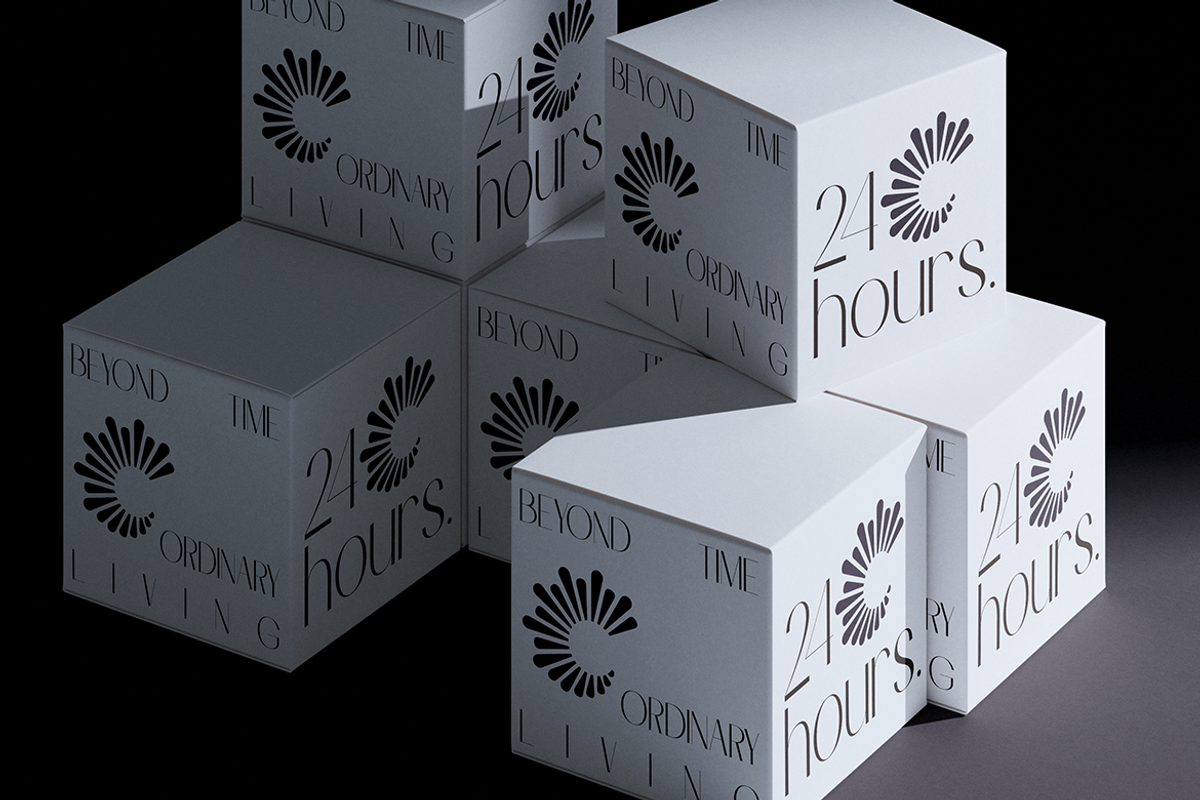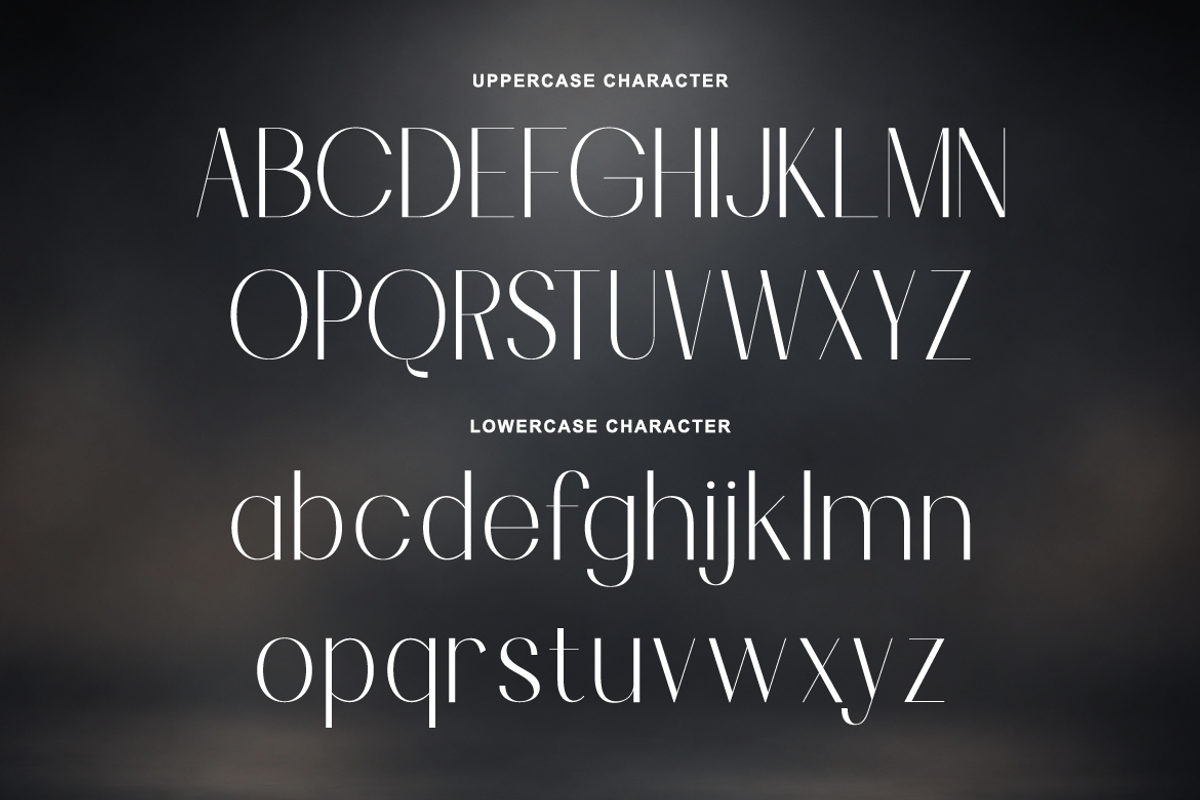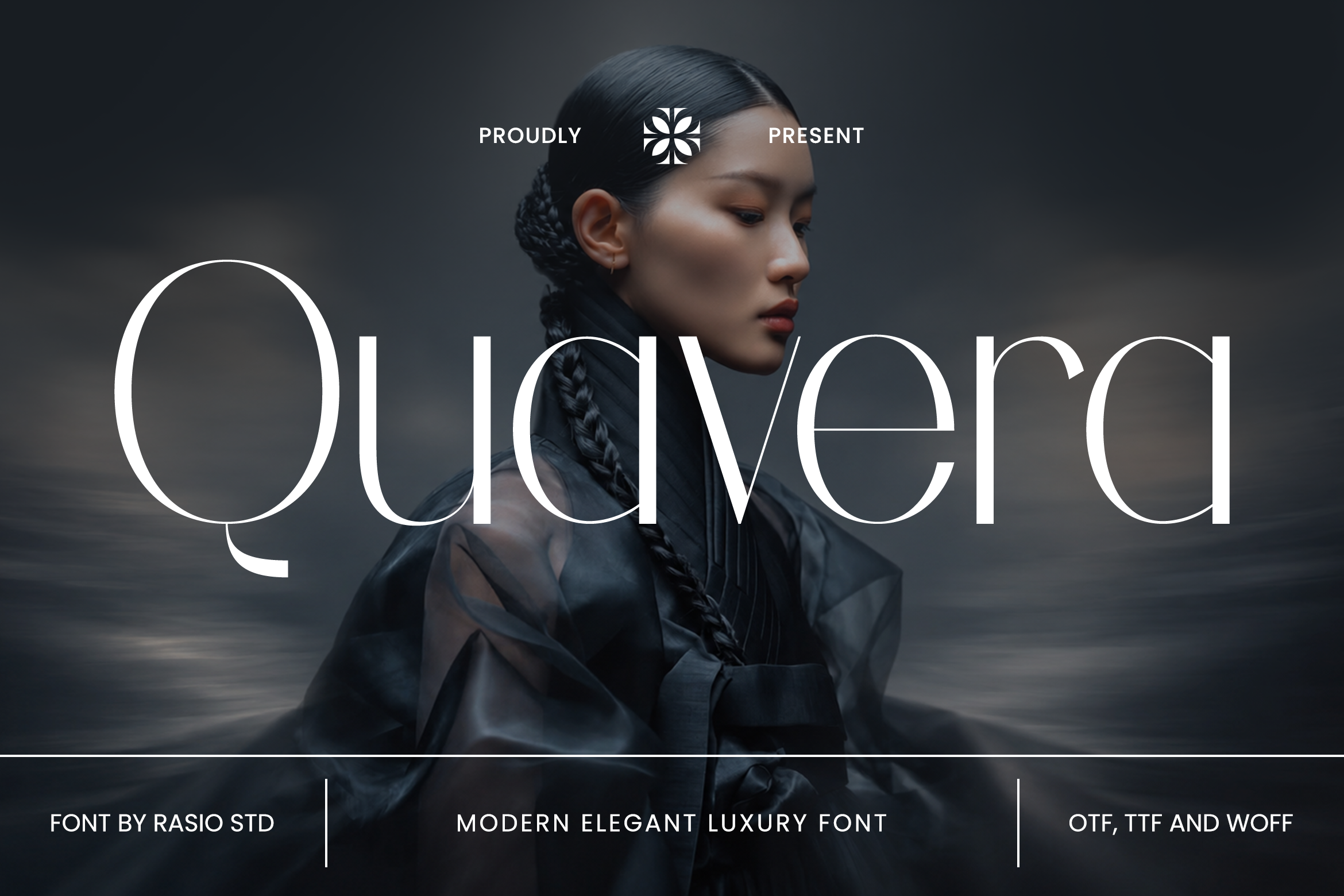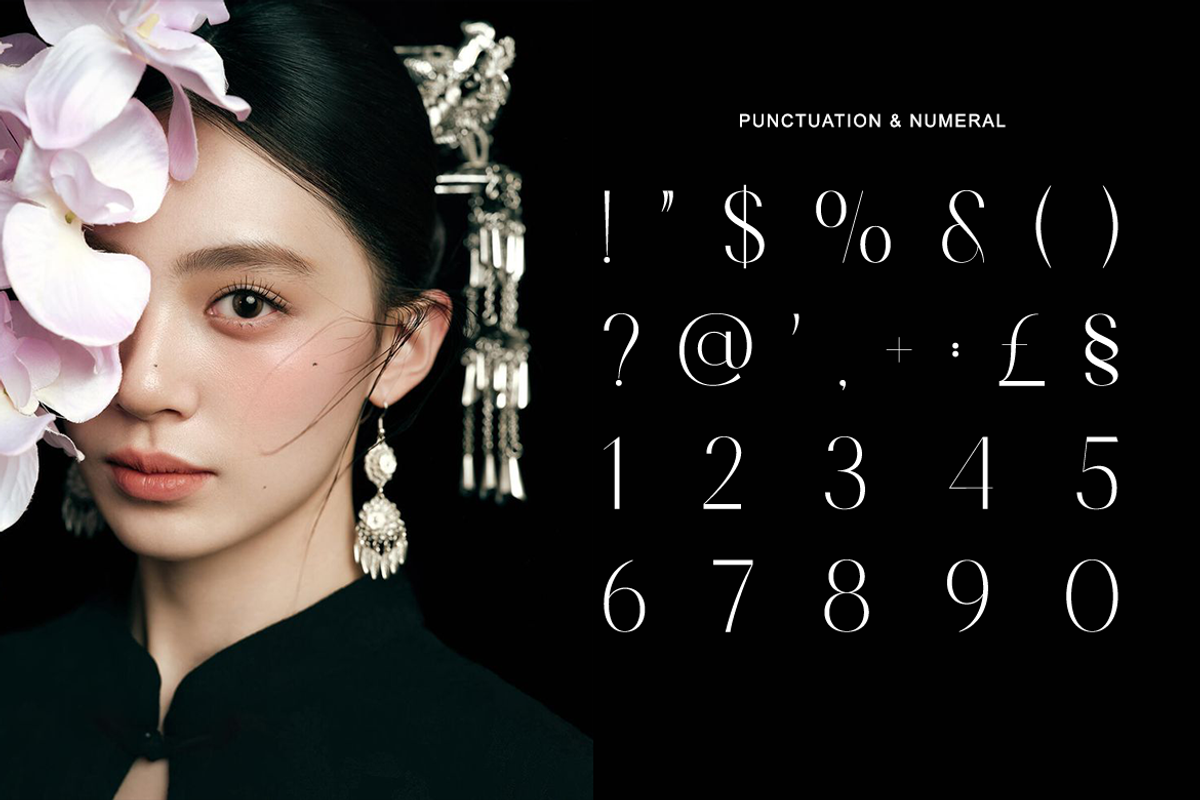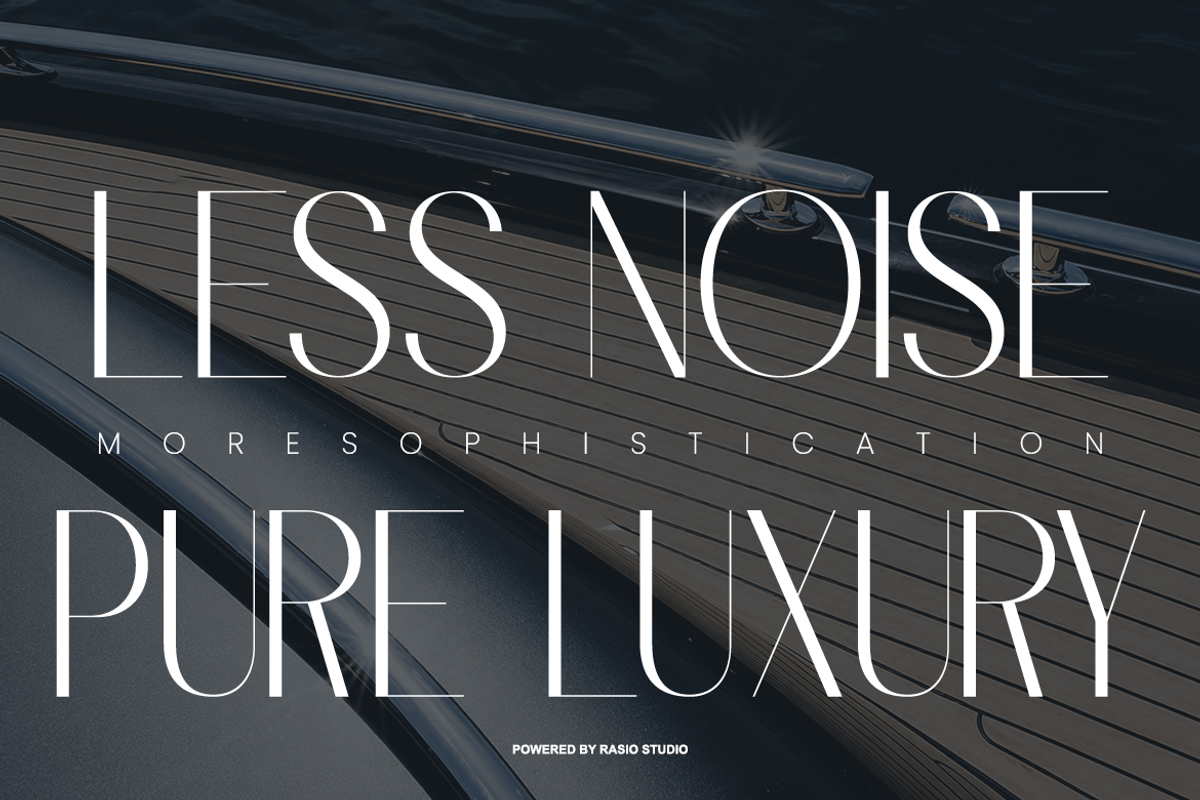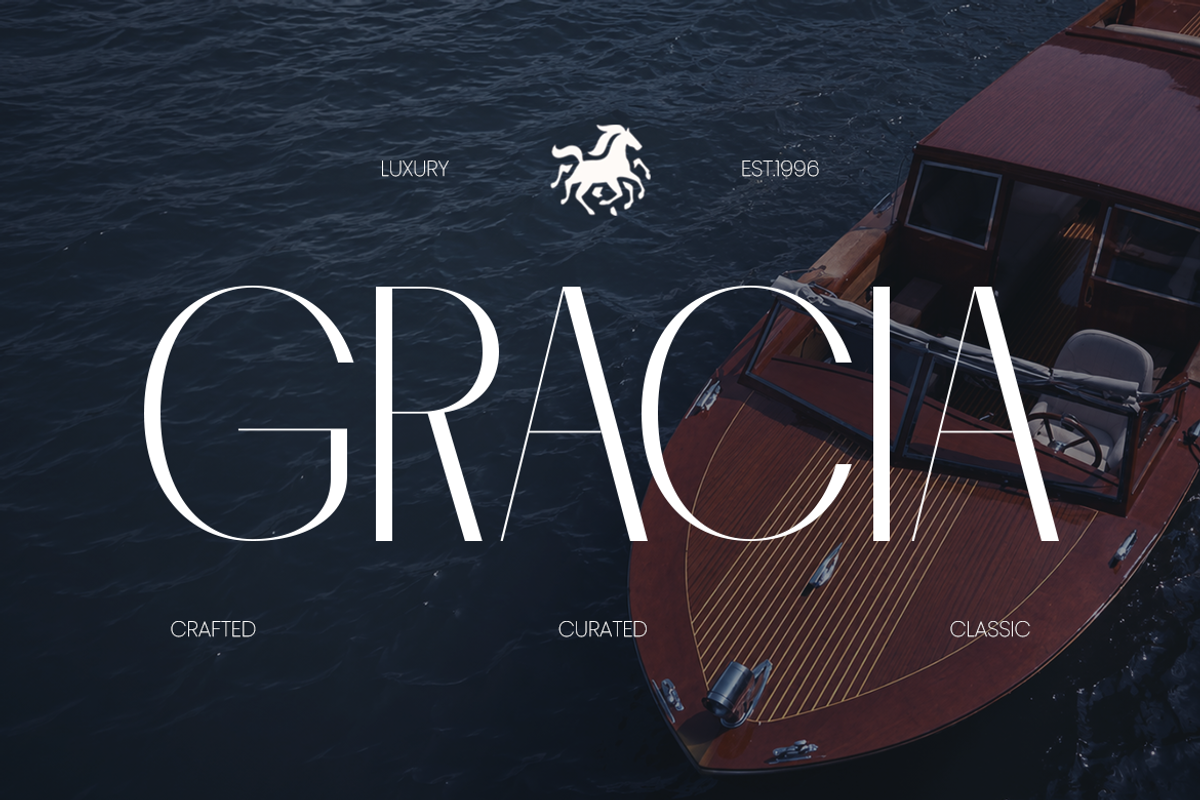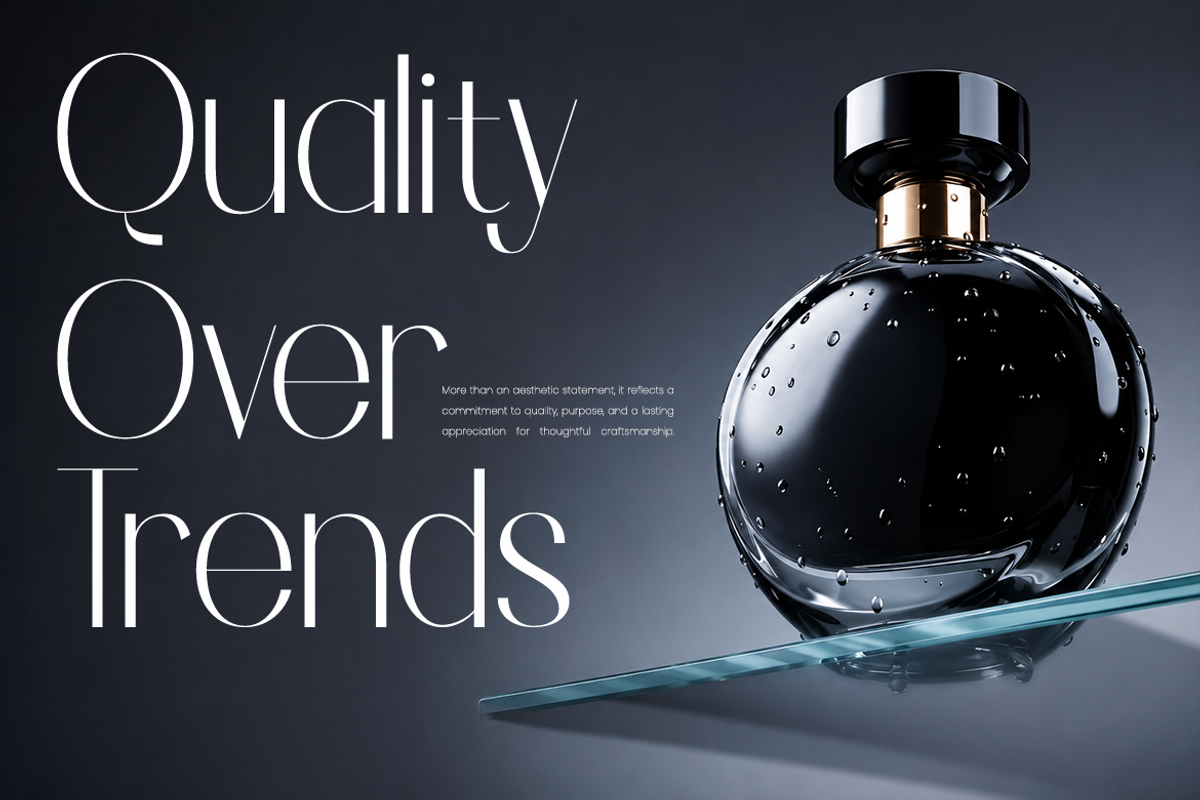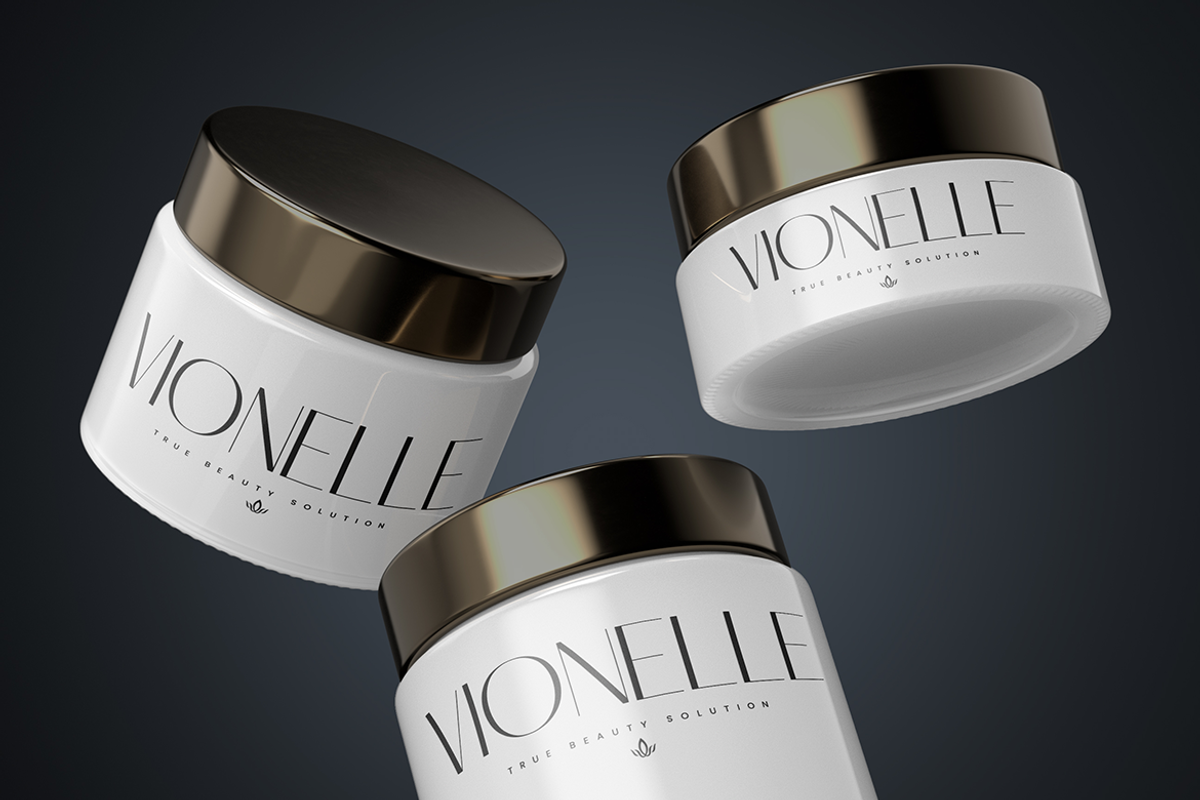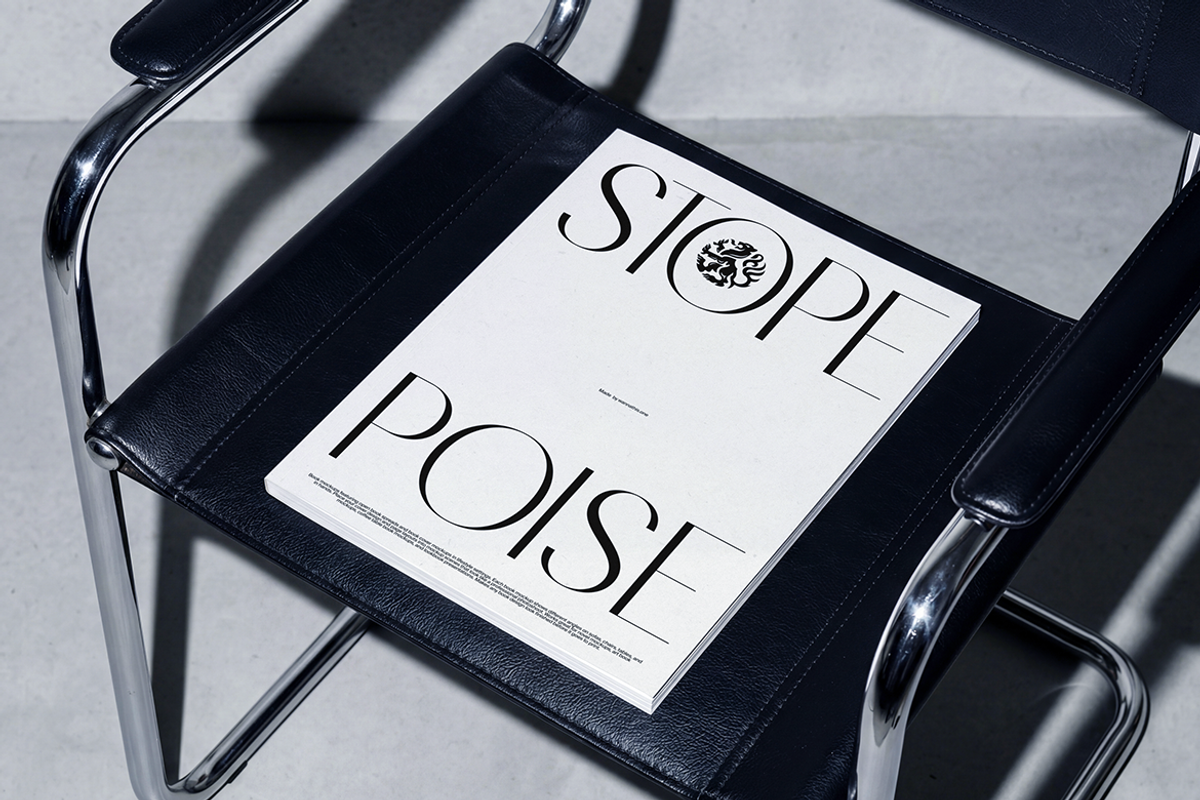
Quavera Modern Elegant Luxury Font
Quavera Modern Elegant Luxury Font is a refined high-contrast serif typeface crafted for sophisticated branding, editorial design, and premium visual identities. The design features elegant thin-to-thick stroke transitions, elongated vertical proportions, and delicately sculpted serifs that create a graceful, luxurious appearance with exceptional visual balance.The font includes uppercase and lowercase characters, numerals, punctuation, and standard ligatures, making it versatile for both expressive headlines and premium branding applications.
Designed for high-end creative work, Quavera delivers a polished typographic presence across fashion campaigns, luxury packaging, editorial publications, beauty branding, boutique identities, and elegant logo design. Its refined proportions ensure excellent readability while maintaining a distinctive luxury aesthetic across both print and digital media. Its letterforms combine contemporary minimalism with timeless editorial elegance. Distinctive terminals, generous spacing, and carefully refined curves produce clean typography that feels light, confident, and highly readable.
High-contrast modern serif with refined luxury proportions
Ultra-thin hairlines balanced by elegant vertical strokes
Elongated letterforms for graceful editorial presence
Delicate curves and precise terminals for sophisticated detail
Distinctive alternates that enhance premium branding and logo design
Luxury brand logos and sophisticated identity design
High-end editorial layouts, magazines, and fashion lookbooks
Premium cosmetic, perfume, and jewelry packaging
Boutique hospitality branding and elegant restaurant menus
Wedding invitations, certificates, and refined social media campaigns
Supports numerals, punctuation, and extensive symbol set
Quavera and express modern sophistication through beautifully refined typography